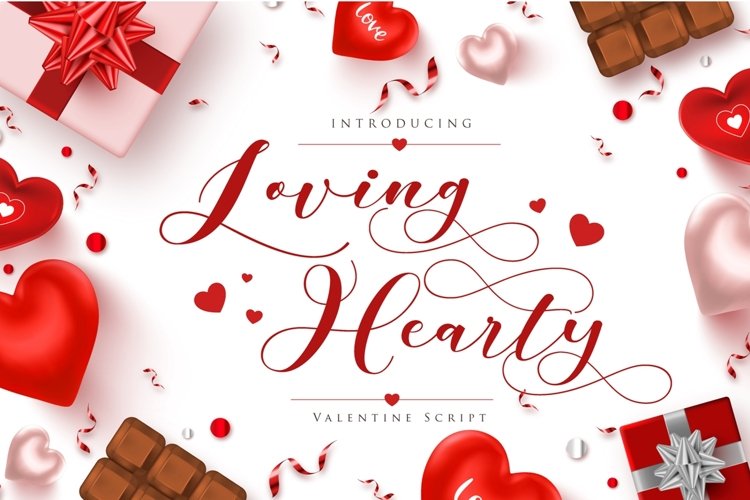
Loving Hearty is a beautiful and flowing handwritten font with love.
It looks beautiful on a variety of designs requiring a personalized style, such as wedding invitations, thank you cards, weddings, greeting cards, logos and so on.
This font is PUA encoded which means you can access all of the glyphs and swashes with ease!
Loving Hearty a new fresh & modern script with a valentine style, decorative characters and a dancing baseline! So beautiful on invitation like greeting cards, branding materials, business cards, quotes, posters, and more!!
The alternative characters were divided into several Open Type features such as Swash, Stylistic Sets, Stylistic Alternates, Contextual Alternates. The Open Type features can be accessed by using Open Type savvy programs such as Adobe Illustrator, Adobe InDesign, Adobe Photoshop Corel Draw X version, And Microsoft Word. And this Font has given PUA unicode (specially coded fonts). so that all the alternate characters can easily be accessed in full by a craftsman or designer.
You can mix and match with Opentype feature:
Ekstras 16 ligature
More than 245 of glyphs
Alternates
Stylistic sets from ss01 to ss08